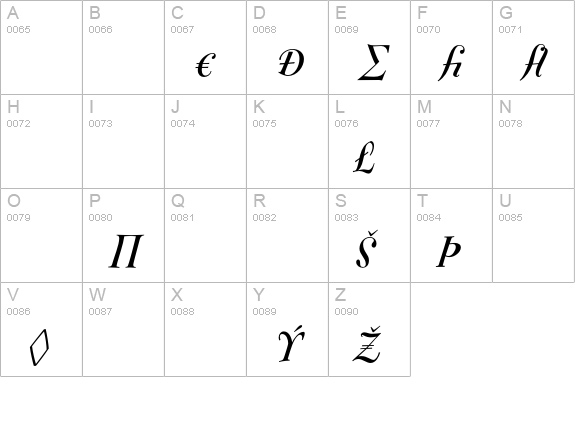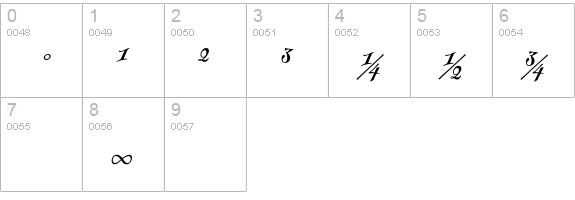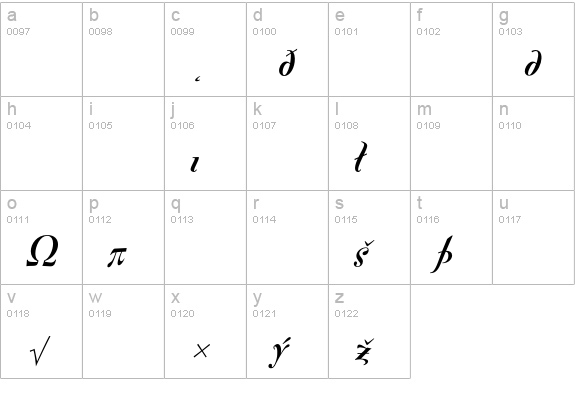
FontesqueText-BoldItalicExpert is a beautifully crafted font that exudes elegance and sophistication. With its bold and italic style, this font is perfect for adding a touch of flair to any design project. Whether you're creating invitations, posters, or branding materials, FontesqueText-BoldItalicExpert is sure to make a statement. The best part? This stunning font is available for free download at FontsMarket.com. Now you can elevate your designs without breaking the bank. Don't miss out on the opportunity to enhance your projects with the timeless charm of FontesqueText-BoldItalicExpert. Download it today and let your creativity shine!